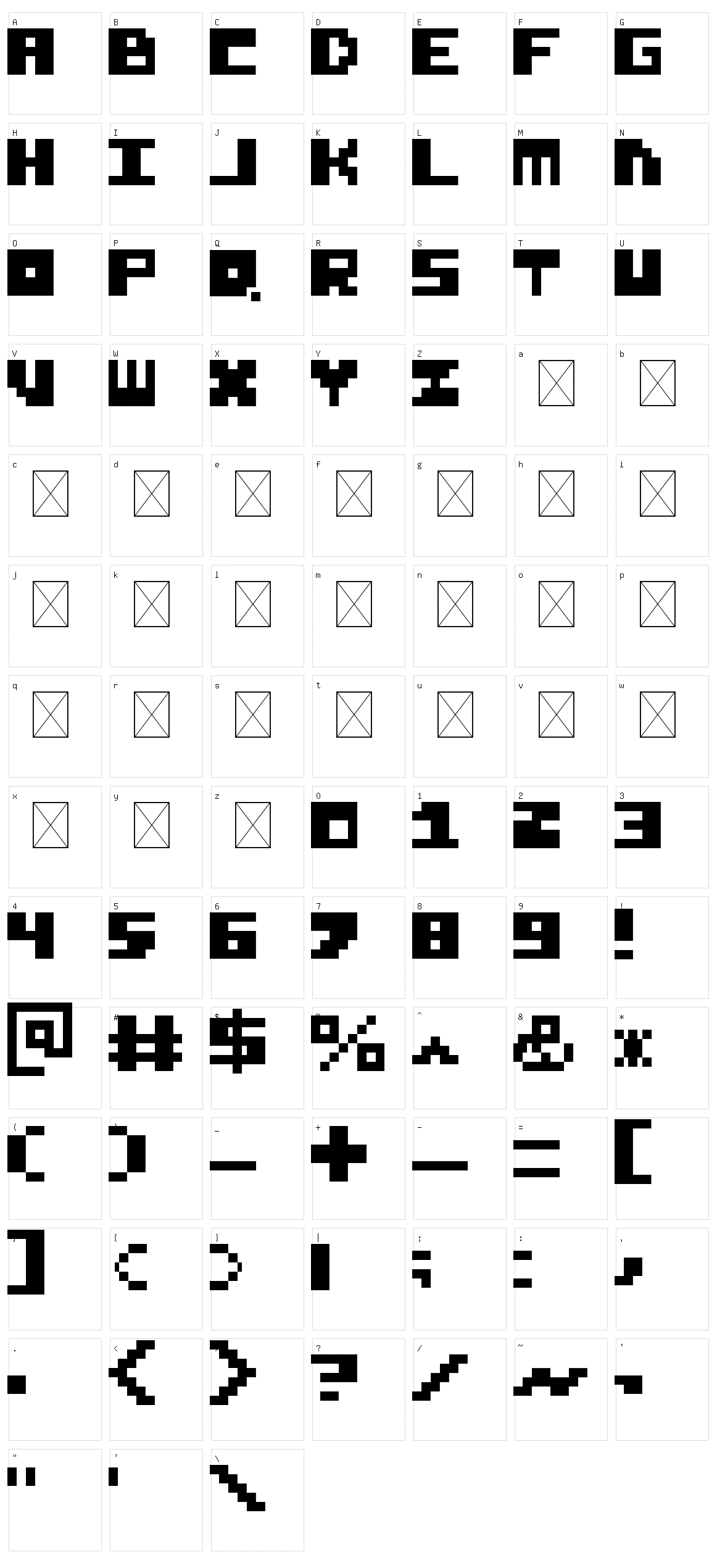
Re Do
Description: The free font Re Do is carefully designed by StrandedIgnitionender, showcasing a thoughtful balance of creativity and usability and belongs to the Bitmap font family. When you download the ZIP file, it contains only 5.54 KB of font files, making it lightweight and quick to download. Please review the license details below to understand permitted usage and distribution rights. If license information is not available, we recommend using this font for personal projects only or contacting the author directly for commercial usage permissions.